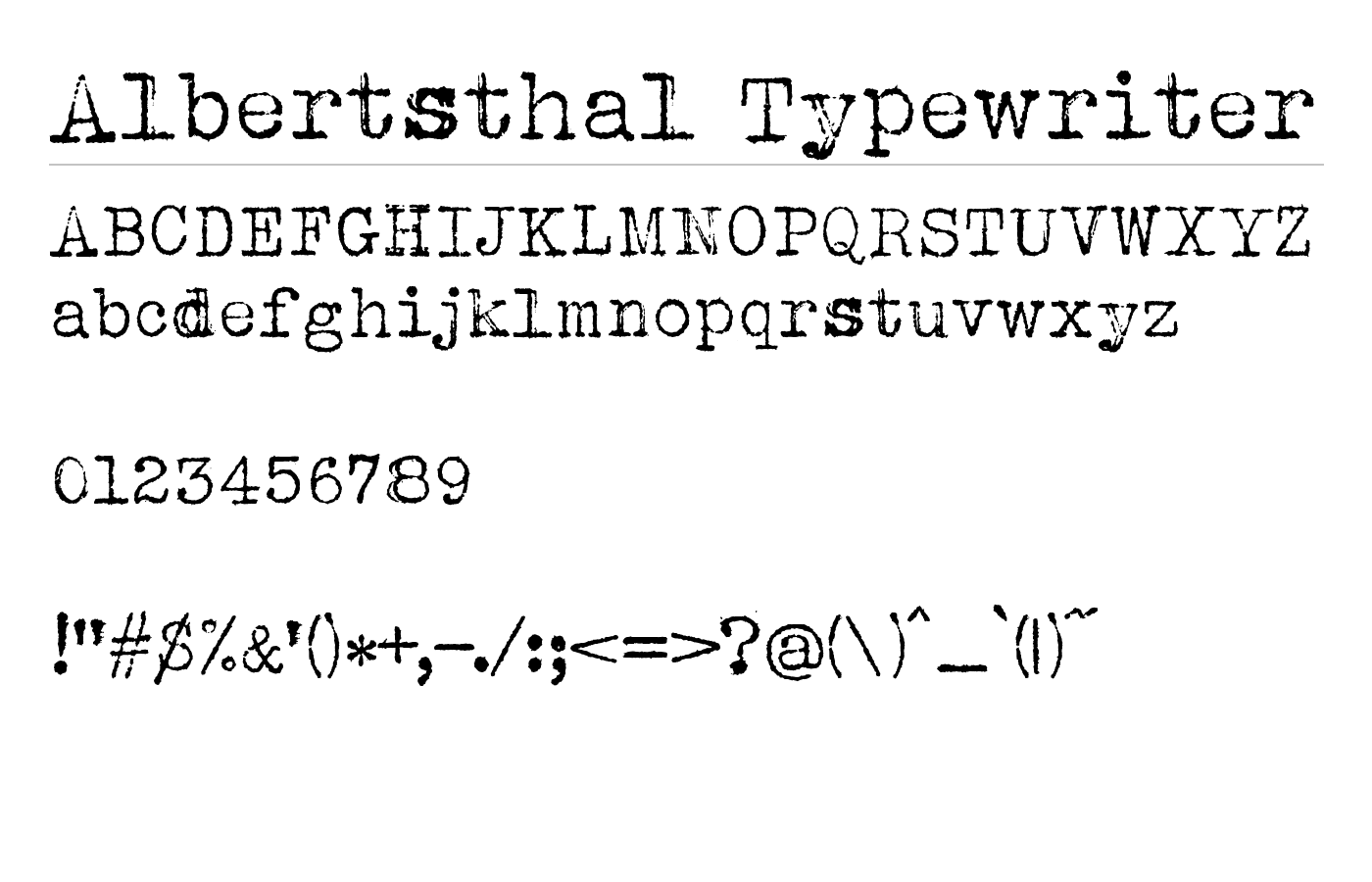
Albertsthal Typewriter is a distressed, serif typewriter font that captures the authentic, vintage look of old mechanical typewriters. With its uneven texture, irregular ink blotches, and classic slab serif structure, it conveys a nostalgic, handcrafted feel perfect for projects seeking a retro or document-like aesthetic. This font works well for editorial uses, posters, and branding that aim to evoke a timeless, personal, or quirky touch.
Albertsthal Typewriter Font
About Albertsthal Typewriter Font
| Font family | Albertsthal Typewriter Font |
| Designer | Lukas Krakora |